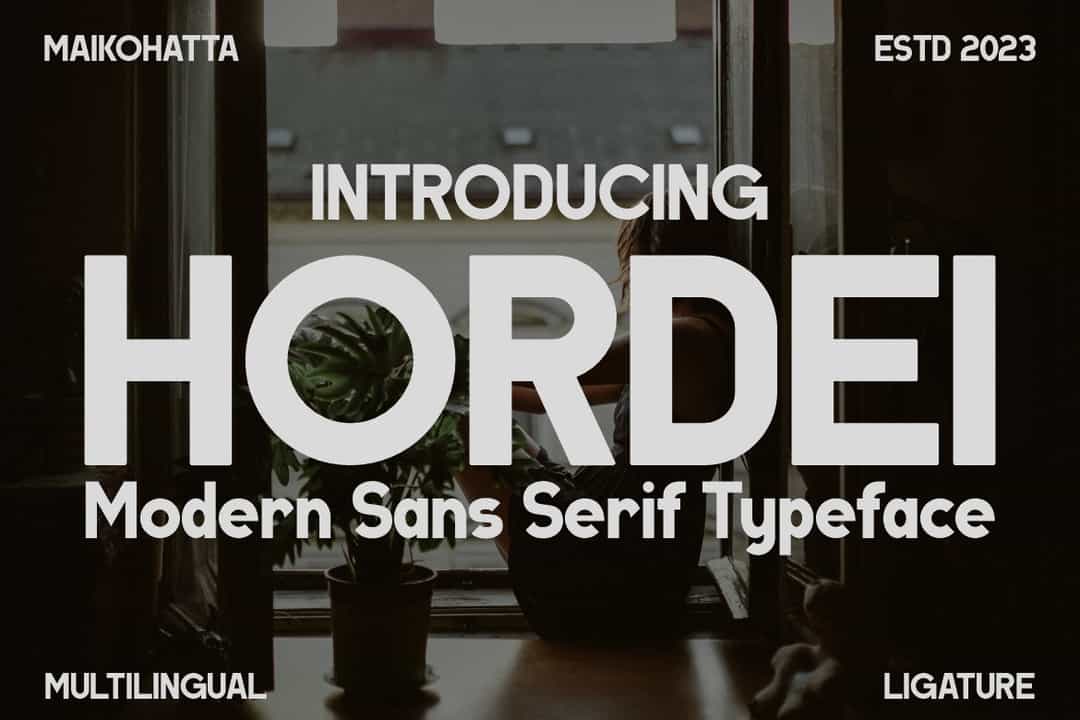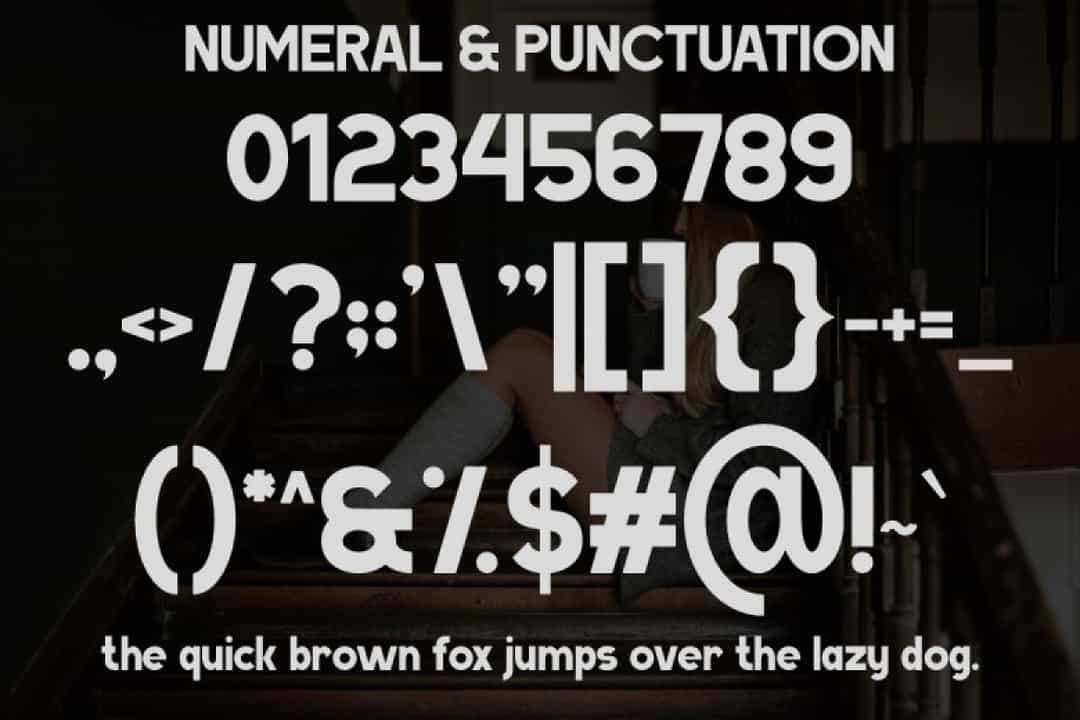
Hordei Font is an eye-catching contemporary and genuine sans serif typeface that’s ideal for branding projects such as logos, templates and even esports related materials. It stands out in a range of situations.